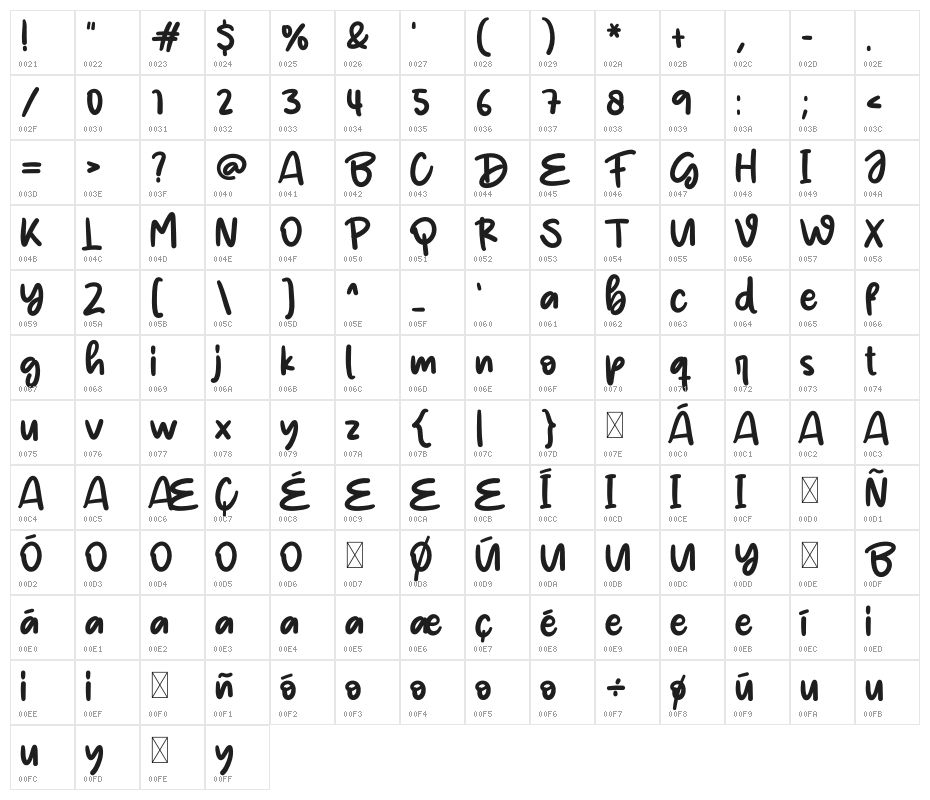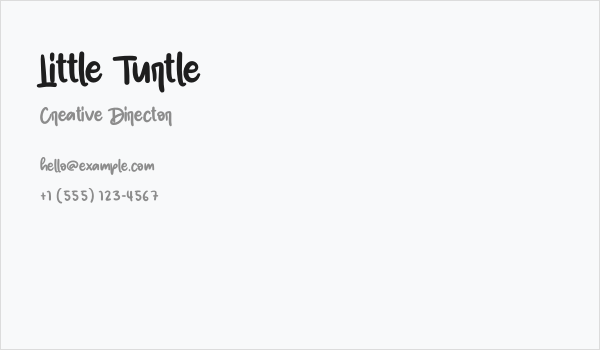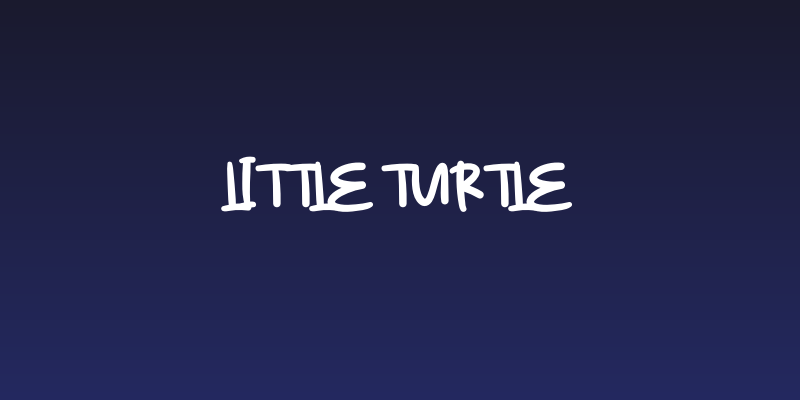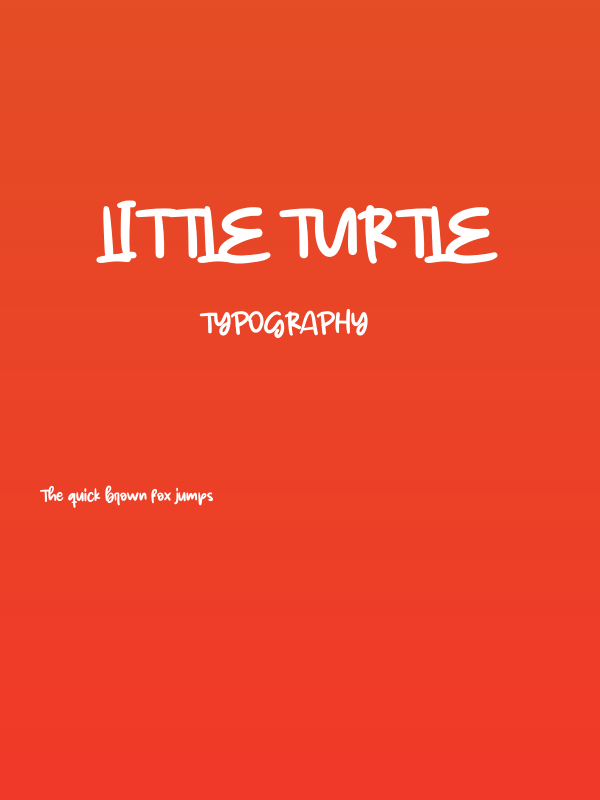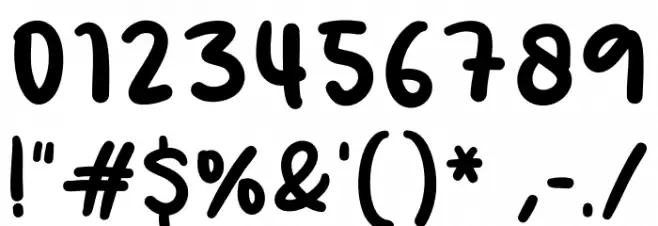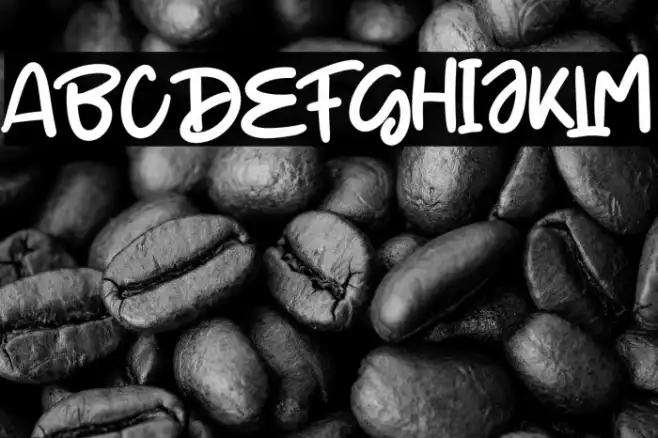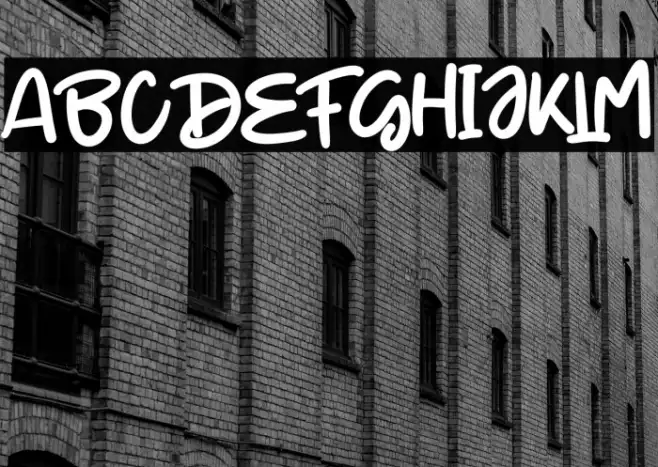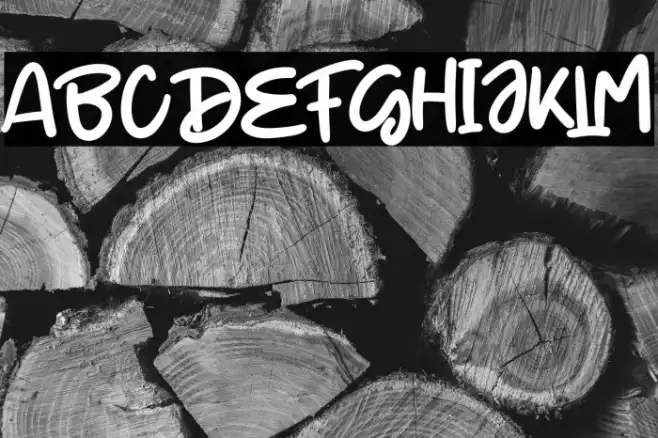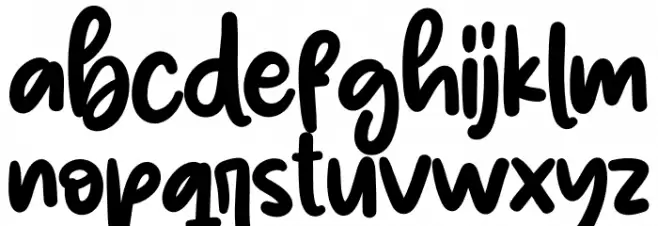
Little Turtle Font
Little Turtle Description
A playful, handwritten font with a casual and friendly appearance, featuring rounded edges and a slightly irregular baseline.
| Proposed Projects | Greeting cards, children's books, informal invitations. |